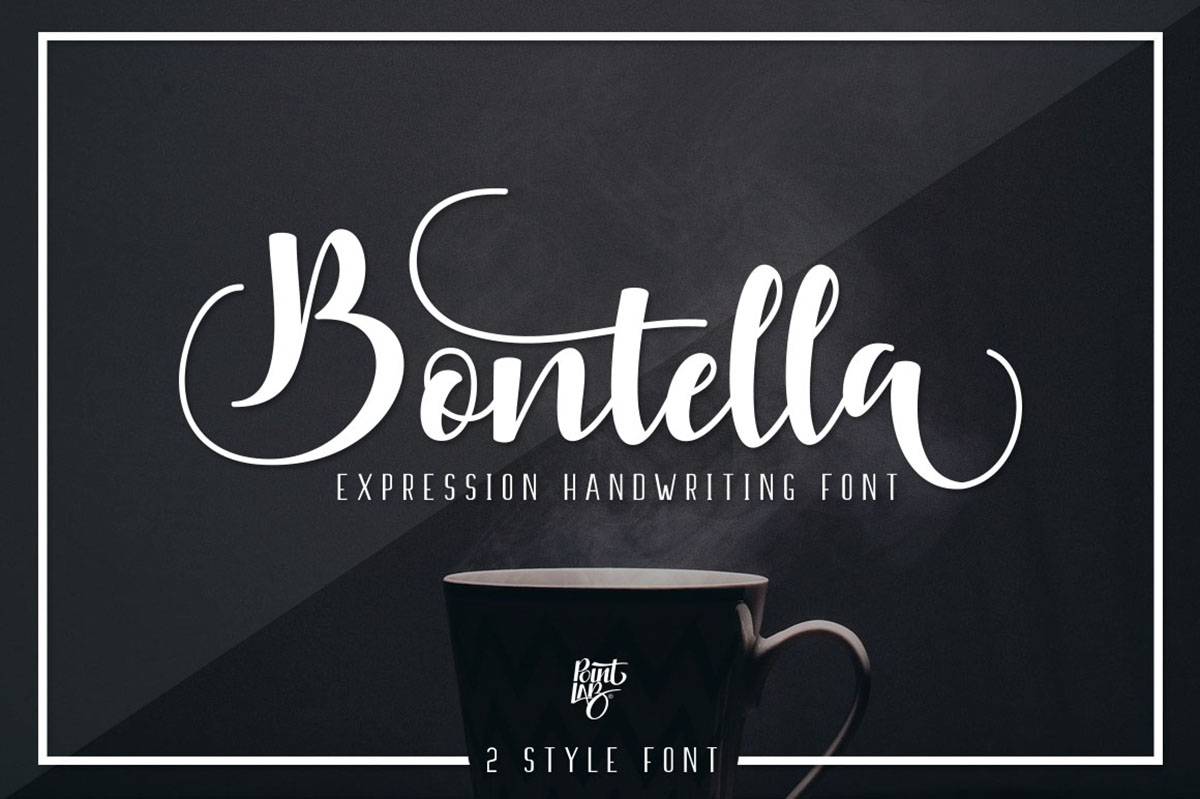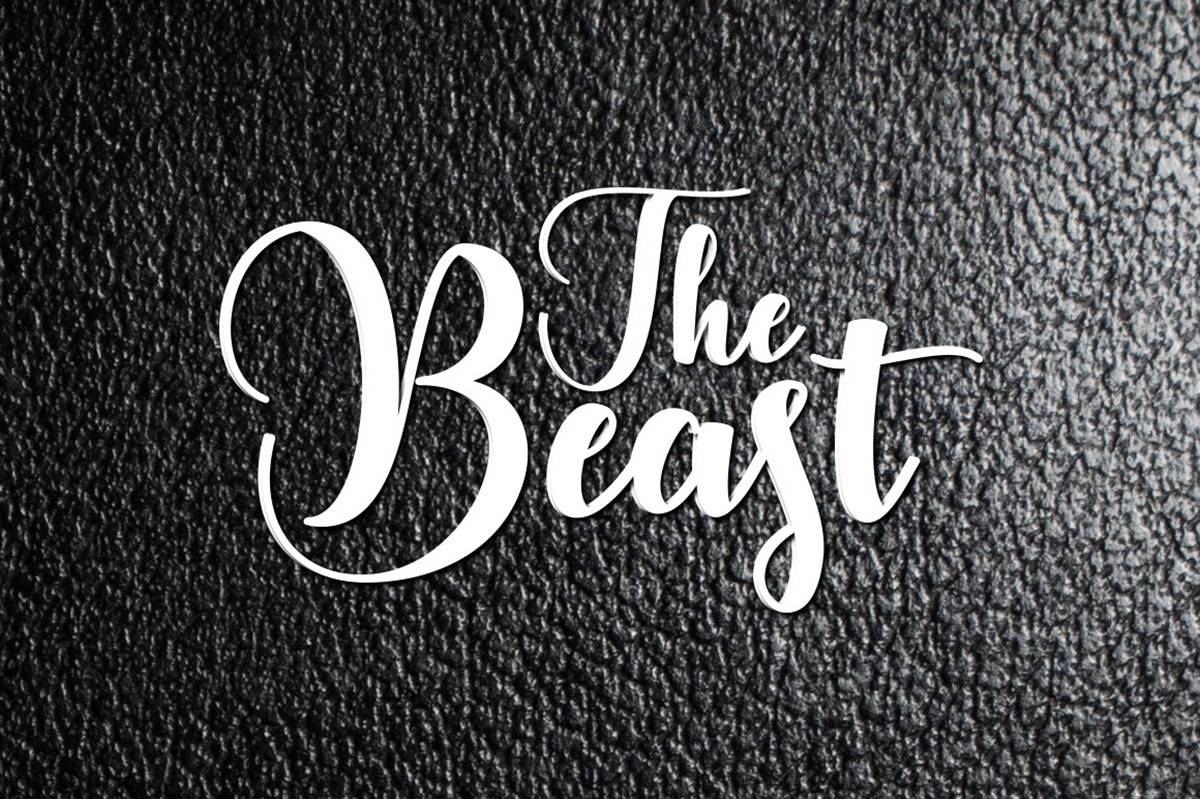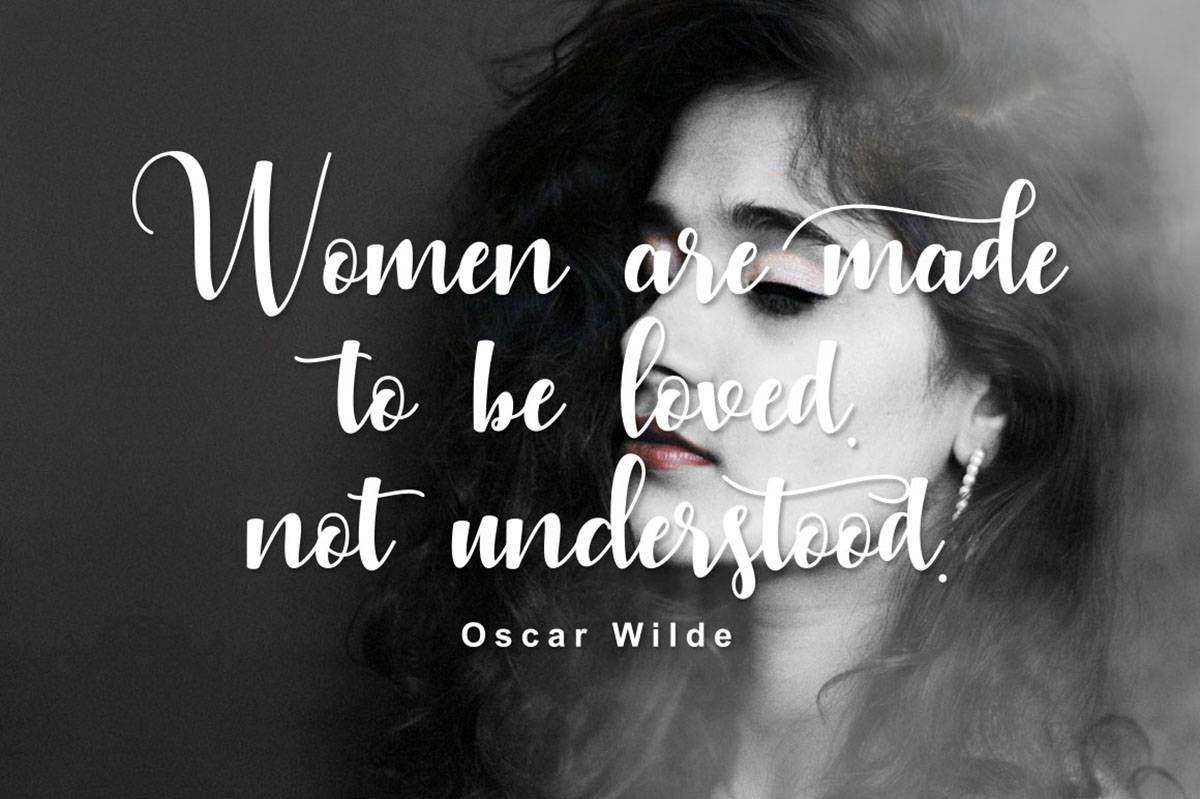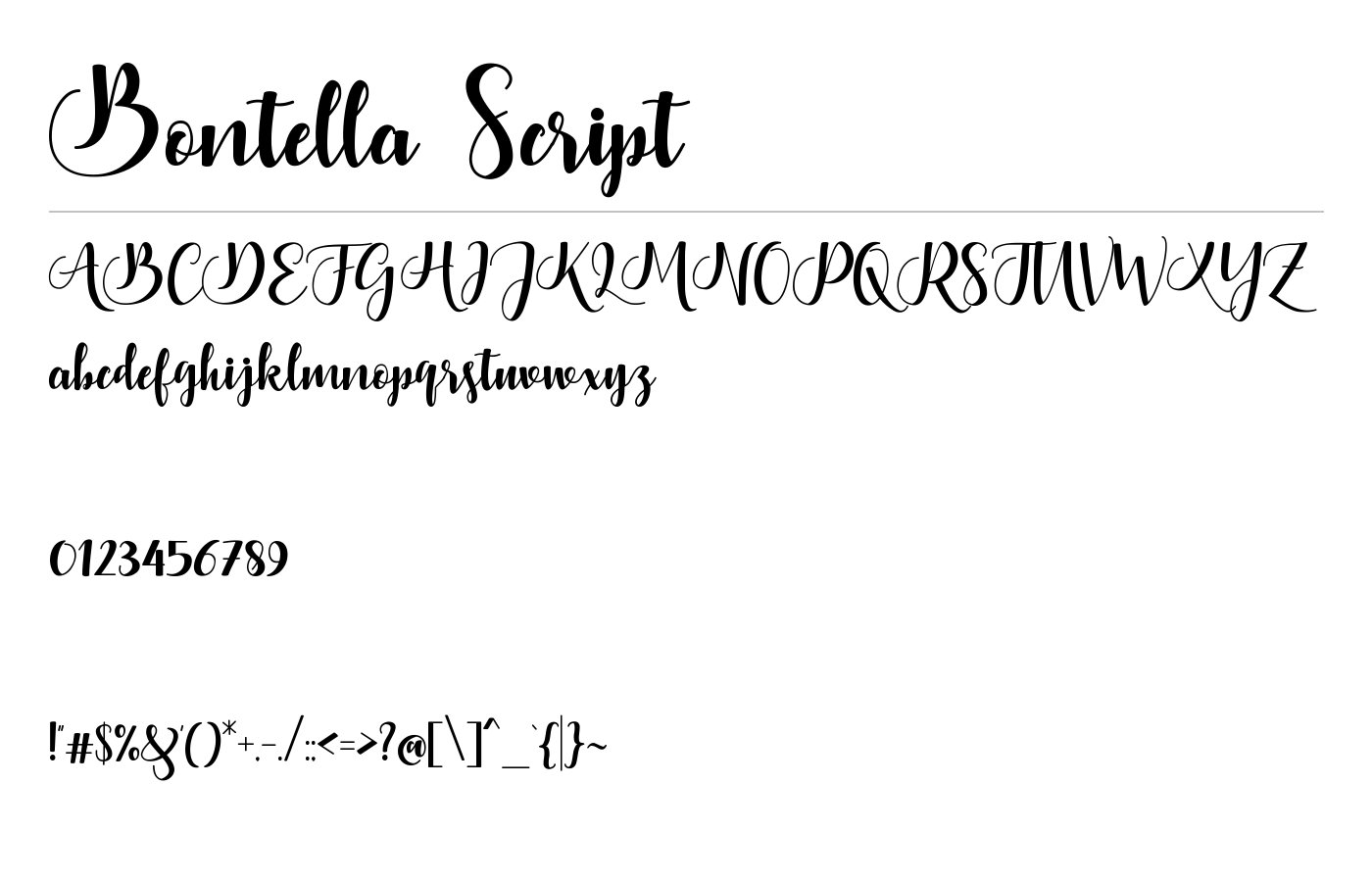
Bontella Script is an elegant and expressive script font featuring flowing, calligraphic strokes with varied thickness that create a graceful and sophisticated look. Its fluid letterforms and distinctive uppercase characters make it perfect for branding, invitations, and any design needing a touch of luxury and charm. This font works best in headlines, logos, and packaging where its personality can truly shine.
Bontella Font
About Bontella Font
| Font family | Bontella Font |
| Release date | 2016-11-22 |
| Designer | pointlab Studio |